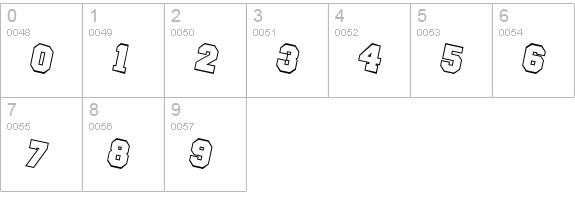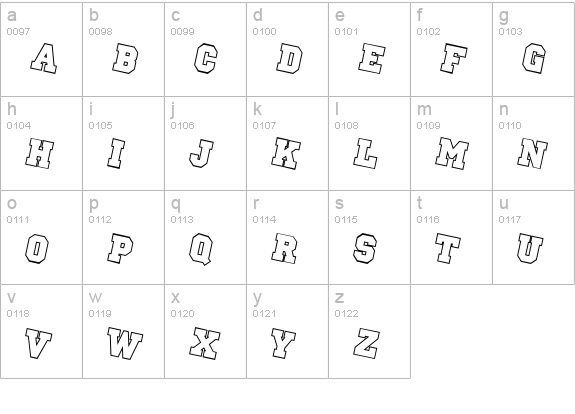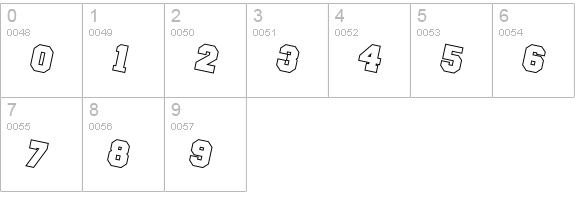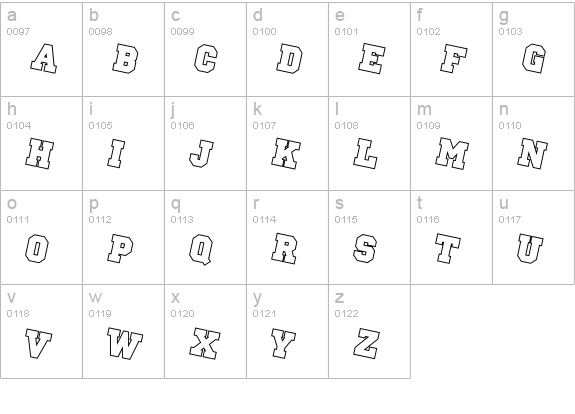
Pep Rally Font Details
Introducing Pep Rally, a vibrant and energetic font that is sure to bring life and excitement to any design project. With its bold, playful letterforms and dynamic curves, this font captures the spirit of a spirited pep rally, where enthusiasm and team spirit run high. Pep Rally is the perfect choice for designs that aim to convey a sense of energy, youthfulness, and enthusiasm. Whether you're designing posters for school events, creating eye-catching headlines for sports magazines, or crafting engaging social media graphics, Pep Rally will add that extra touch of liveliness and excitement. What's even better is that Pep Rally is available for free! Yes, you heard it right. This font is freely available to download at FontsMarket.com. Now, you can bring the spirit of a pep rally to your designs without any cost. It's a great opportunity to add a unique and captivating element to your work, without breaking the bank. Not only does Pep Rally offer a wide range of uppercase and lowercase letters, but it also includes a variety of punctuation marks and special characters, allowing you to customize and personalize your designs to perfection. Its versatility makes it suitable for various design projects, from sports-related designs to creative branding and beyond. So, why wait? Download Pep Rally today from FontsMarket.com and infuse your designs with the spirit and energy of a pep rally. Let this font be the driving force behind your creative endeavors, and watch as it brings your designs to life with its bold and captivating presence.